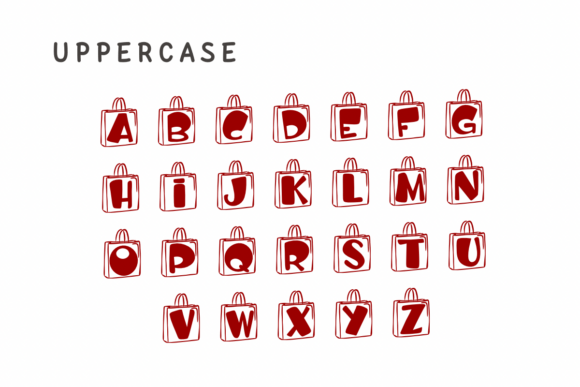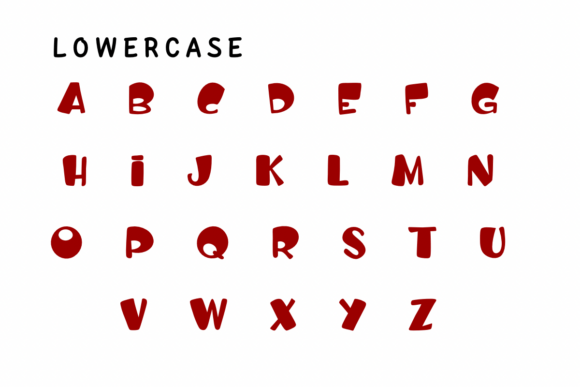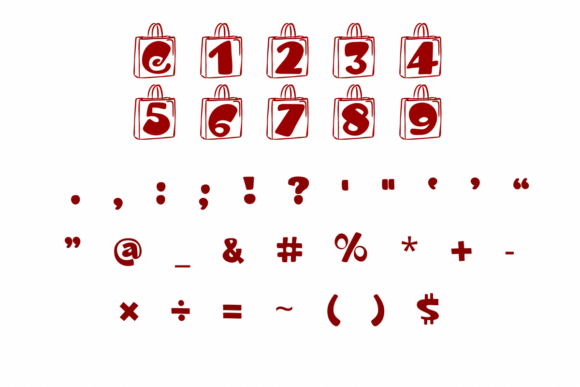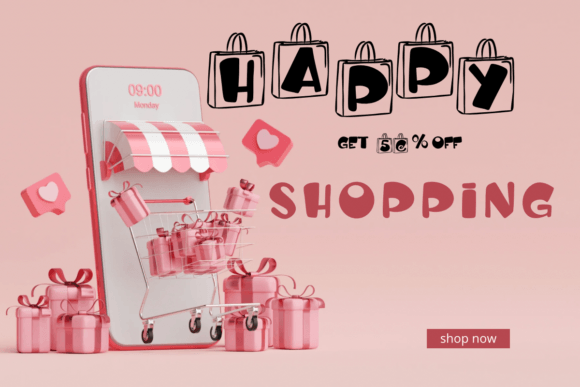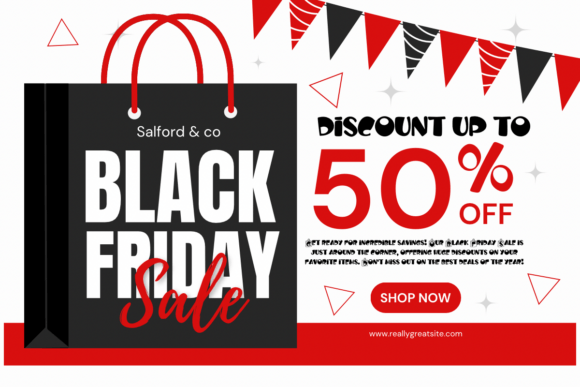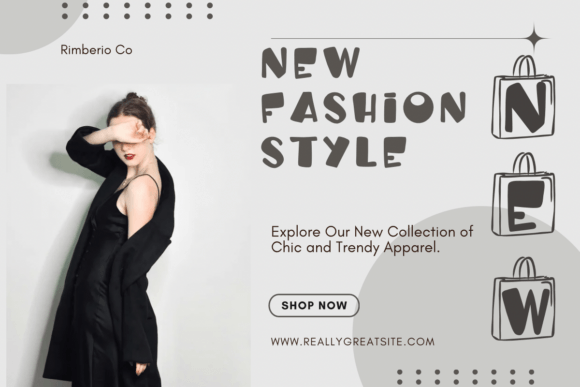
Black Friday Paper Bag Font: Add a Playful Touch to Your Holiday Designs
As the holiday season approaches, designers and crafters are on the lookout for unique and festive elements to add to their creations. One exciting find is the Black Friday Paper Bag Font, a fun and decorative font that mimics the look of letters printed on colorful paper bags. This cheerful design is perfect for shopping during the Black Friday sales, and it’s sure to bring a smile to your customers’ faces.
What is the Black Friday Paper Bag Font?
The Black Friday Paper Bag Font is a digital font designed to resemble the playful, handwritten look of letters printed on paper bags. The font features bold, colorful letters with a fun, informal feel that’s perfect for holiday designs. With its bright colors and lively style, this font is sure to capture the spirit of Black Friday shopping.
Key Features of the Black Friday Paper Bag Font
- Fun and decorative design: The Black Friday Paper Bag Font features a unique, playful design that’s perfect for adding a touch of whimsy to your holiday creations.
- Colorful letters: The font includes a range of bright, bold colors that evoke the look of paper bags.
- Handwritten feel: The font has a friendly, handwritten feel that’s perfect for creating a personal touch in your designs.
How to Use the Black Friday Paper Bag Font
The Black Friday Paper Bag Font is perfect for a variety of holiday designs, including:
- Social media graphics: Use the font to create eye-catching social media graphics that promote your Black Friday sales.
- Flyers and brochures: Add a playful touch to your flyers and brochures with the Black Friday Paper Bag Font.
- Paper crafts: Use the font to create custom paper crafts, such as gift tags, cards, and decorations.
- Digital products: Incorporate the font into your digital products, such as printable art, planners, and organizers.
Benefits of Using the Black Friday Paper Bag Font
Using the Black Friday Paper Bag Font in your designs offers a range of benefits, including:
- Unique and festive look: The font adds a fun and festive touch to your designs, setting them apart from more traditional holiday fonts.
- Easy to read: Despite its playful design, the font is easy to read, making it perfect for use in a variety of applications.
- Customizable: The font can be customized to fit your brand’s style and color scheme, making it easy to integrate into your designs.
Tips for Getting the Most Out of the Black Friday Paper Bag Font
To get the most out of the Black Friday Paper Bag Font, try the following tips:
- Experiment with colors: Try out different color combinations to find the perfect look for your design.
- Mix and match fonts: Combine the Black Friday Paper Bag Font with other fonts to create a unique and visually interesting design.
- Use it sparingly: Use the font sparingly to add a touch of whimsy to your design, rather than overwhelming the entire piece.
The Black Friday Paper Bag Font is a fun and festive font that’s perfect for adding a playful touch to your holiday designs. With its bold, colorful letters and handwritten feel, this font is sure to capture the spirit of Black Friday shopping. Whether you’re a designer or crafter, this font is a great addition to your holiday toolkit. So why not give it a try and see how it can add a touch of whimsy to your holiday creations?